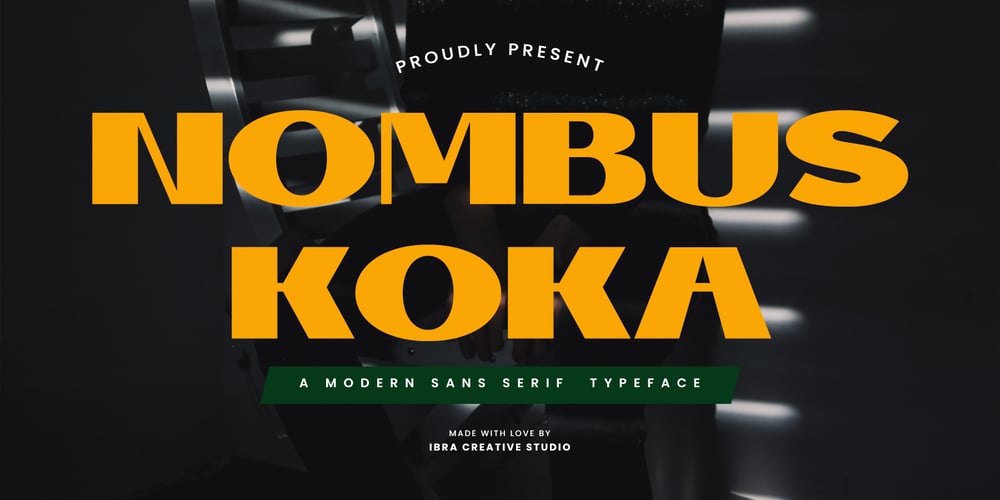
Nombus Koka Font Family was designed by Roisatul Azizah and published by IbraCreative. Nombus Koka contains 1 styles and family package options. Nombus Koka – A Modern Sans Serif FontNombus Koka, a modern sans-serif font, embodies a perfect blend of sleek sophistication and minimalistic charm. Its clean, geometric lines exude a contemporary aesthetic, making it an ideal choice for a wide range of design applications. Nombus Koka carries a timeless appeal with its balanced letterforms, providing clarity and readability across various platforms. The font’s versatility shines through in its ability to seamlessly adapt to both digital and print mediums, maintaining a sense of professionalism and modernity. Whether used for corporate branding, editorial design, or web interfaces, Nombus Koka adds a touch of refined simplicity, making it an excellent choice for those seeking a contemporary and visually appealing sans-serif typeface. Nombus Koka is perfect for branding projects, logo, wedding designs, social media posts, advertisements, product packaging, product designs, label, photography, watermark, invitation, stationery, game, fashion and any projects.Fonts include multilingual support for; Afrikaans, Albanian, Czech, Danish, Dutch, English, Estonian, Finnish, French, German, Hungarian, Italian, Latvian, Lithuanian, Norwegian, Polish, Portuguese, Slovak, Slovenian, Spanish, Swedish.